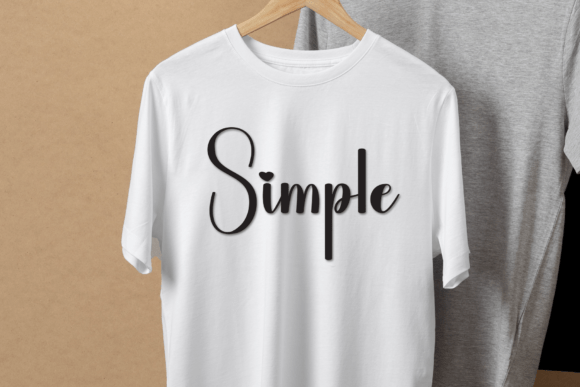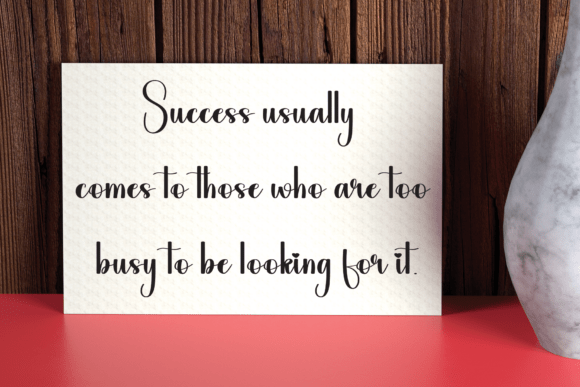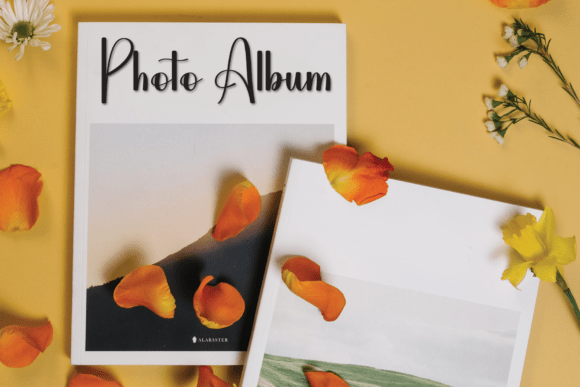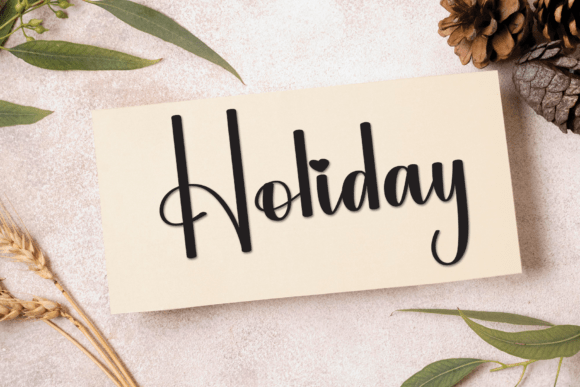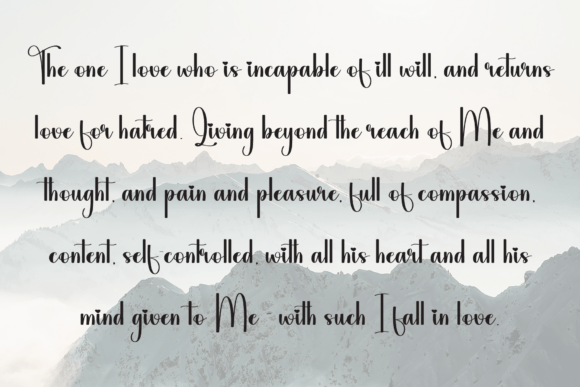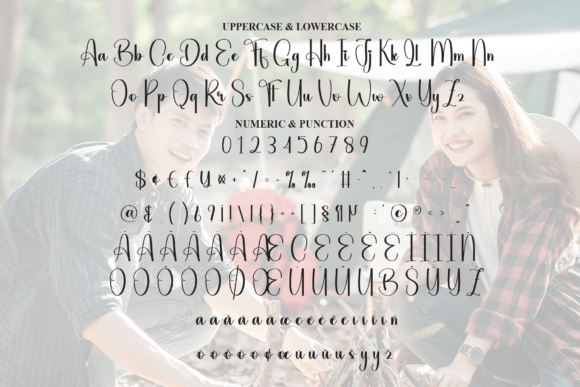
Unpacking the Magic of Happy Camping Font
As designers, we’ve all been there – staring at a blank page, trying to capture the perfect vibe for a project. And then, it hits us – the perfect font, the one that brings our vision to life. For me, it was the moment I stumbled upon the Happy Camping Font, a stylish handwritten script that seemed to dance across the screen with elegance and freshness. I knew right then and there that this font was something special.
Happy Camping Font is more than just a pretty face – it’s a tool that adds a delicate, personal touch to invitations, branding, and stationery. With its flowing curves and gentle strokes, it brings warmth and creativity to any design. Whether you’re a seasoned pro or just starting out, this charming typeface is a valuable addition to any designer’s toolkit.
Happy Camping Font Key Features
- Size: The font family includes 4 different font weights (Light, Regular, Medium, and Bold), providing flexibility for various design needs.
- Unique Characteristics: The Happy Camping Font features a playful, handwritten style with a mix of cursive and block letterforms, creating a friendly and approachable atmosphere.
Happy Camping Font Review
As a designer, I was excited to try out the Happy Camping Font. Overall, I think it’s a solid addition to any camping-themed project. ✨ The font is playful and fun, making it perfect for outdoor enthusiasts. The bold and cursive styles work well together, adding a sense of adventure and freedom to any text.
The Happy Camping Font is also very versatile, making it suitable for a wide range of applications, from posters and flyers to t-shirts and logos. The font’s open-source nature means it’s free to use, which is a definite plus.
- Playful and fun design
- Perfect for outdoor-themed projects
- Bold and cursive styles work well together
- Very versatile
- May not be suitable for formal or professional projects
- Lack of fine-tuning options (e.g. ligatures, kerning)
Overall, I think the Happy Camping Font is a great choice for designers looking to add a playful touch to their outdoor-themed projects. With a little creativity, it can be used in a variety of applications. However, it may not be the best choice for more formal or professional projects.
Use the Happy Camping Font to add a playful touch to your designs. Pair it with bold, bright colors to create a fun and energetic vibe. Experiment with different font sizes and styles to add visual interest to your design.
The Happy Camping Font is perfect for outdoor-themed designs, such as camping trip invitations, hiking trail maps, and outdoor product packaging. It’s also great for adding a playful touch to educational materials, such as children’s books and activity sheets.